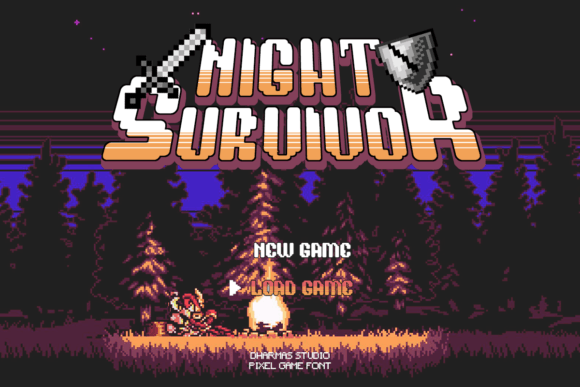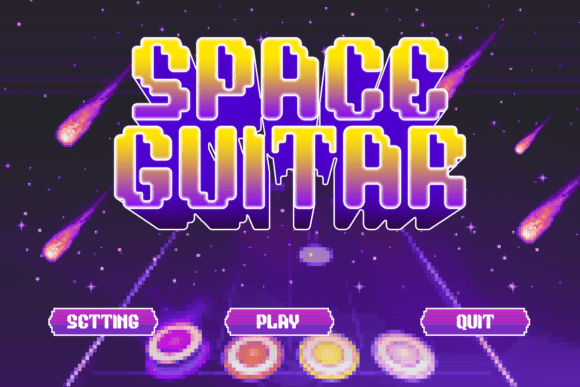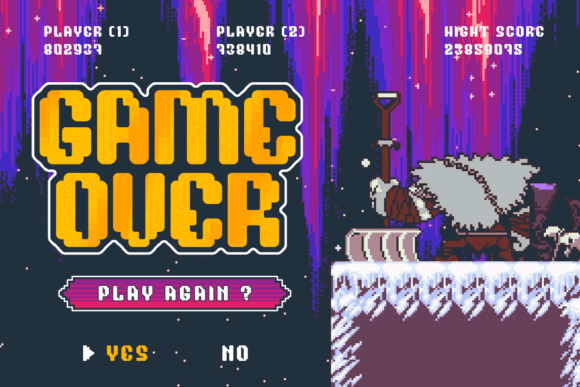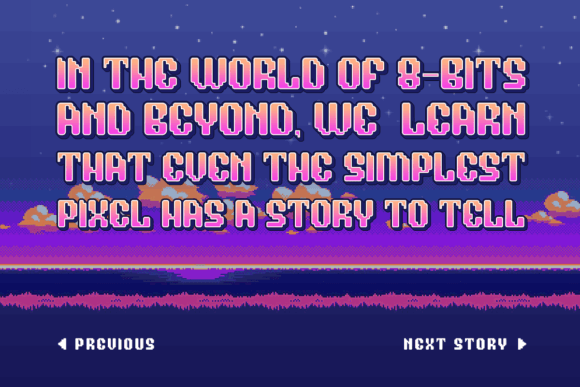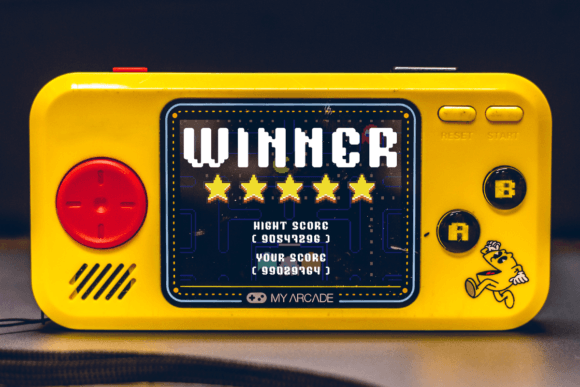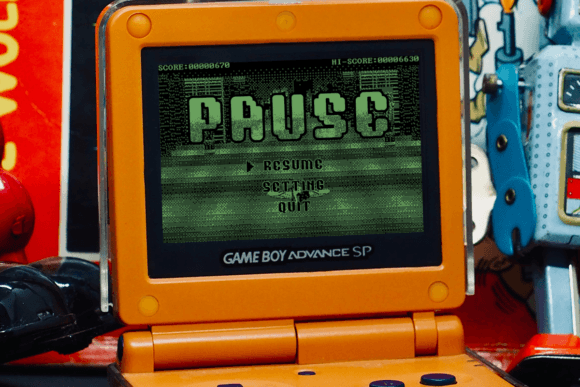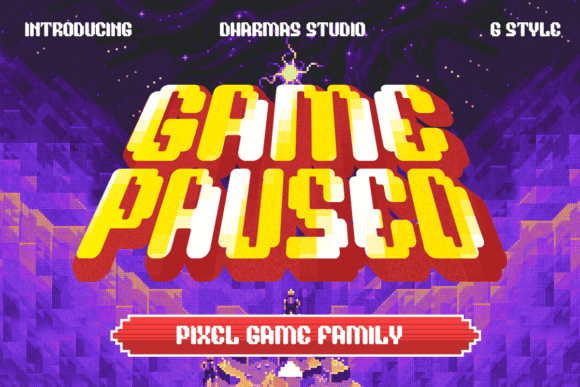
Introducing the GAME PAUSED Font Collection: A Retro Nostalgia for Designers! 🎮🕹️
Are you ready to level up your design game with a blast from the past? Look no further than the GAME PAUSED font collection! This exciting new font is designed to bring back the nostalgia of retro pixel games, perfect for designers and crafters looking to add a touch of vintage charm to their projects.
6 Unique Styles to Elevate Your Designs
The GAME PAUSED font collection comes in 6 unique styles, each offering a distinct twist on the classic pixel game aesthetic. The styles include:
- Regular: The original GAME PAUSED font, perfect for adding a clean and crisp touch to your designs.
- Slant: A slanted version of the font, adding a dynamic and playful feel to your text.
- Outline: A outlined version of the font, great for creating eye-catching titles and headings.
- Extrude: A 3D extruded version of the font, adding depth and dimension to your designs.
- Outline Slant: A slanted outlined version of the font, perfect for creating bold and attention-grabbing text.
- Extrude Slant: A 3D extruded slanted version of the font, ideal for adding a futuristic touch to your designs.
A Perfect Blend of Futuristic Pixel Game Vibes
The GAME PAUSED font collection is designed to complement any project, especially pixel game ventures. The font’s futuristic pixel game vibes make it perfect for:
- Pixel art projects
- Game development
- Retro-style graphics
- Cartoon and animation projects
- Any design project that requires a touch of nostalgia
A Playful Tribute to the Iconic Style of the 00s
The GAME PAUSED font collection is a playful tribute to the iconic style of the 00s. Remember the days of:
- Pixel Art
- Game Boys
- Cartoon
- Retro video games
This font brings back those cherished memories, allowing you to incorporate a touch of nostalgia into your designs.
Get Ready to Press “START” on a New Level of Design Possibilities
With the GAME PAUSED font collection, you’re ready to take your designs to the next level. Grab your controller and let your creativity run wild! The font’s versatility and playfulness make it perfect for:
- Web design
- Any design project that requires a unique and eye-catching font
Enjoy Designing with GAME PAUSED!